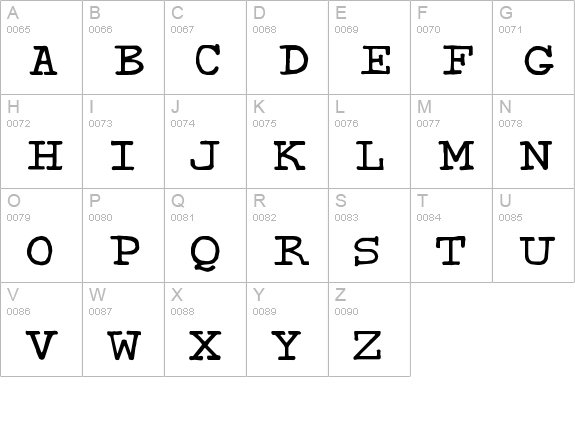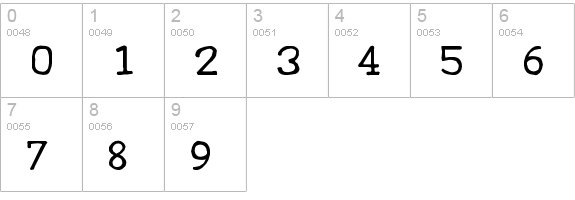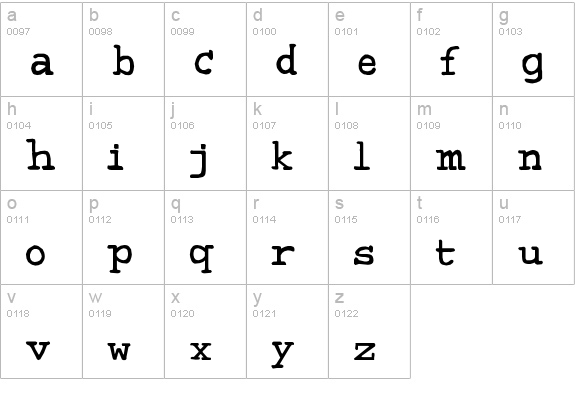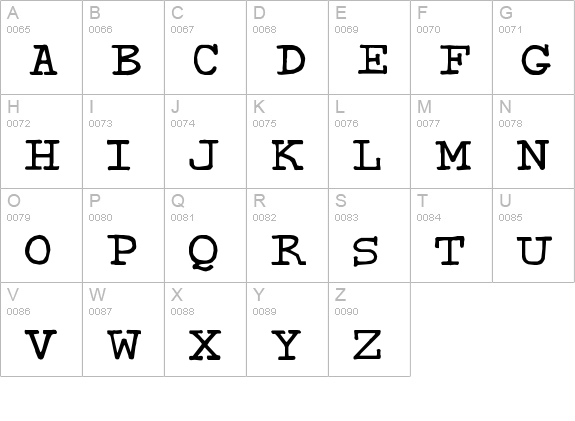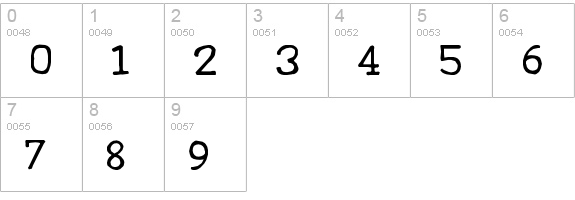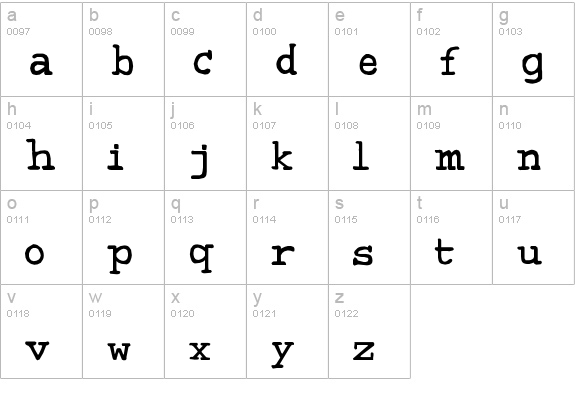
Sweeep Font Details
Introducing Sweeep font, a sleek and stylish typeface that effortlessly blends modern simplicity with a touch of elegance. With its clean lines and gentle curves, Sweeep is perfect for a wide range of design projects, from branding to editorial layouts. But that's not all - the best part about Sweeep font is that it is completely free! Yes, you read that right. You can easily download this beautiful font at FontsMarket.com without spending a dime. So why wait? Embrace the beauty of Sweeep font today and elevate your designs to new heights.